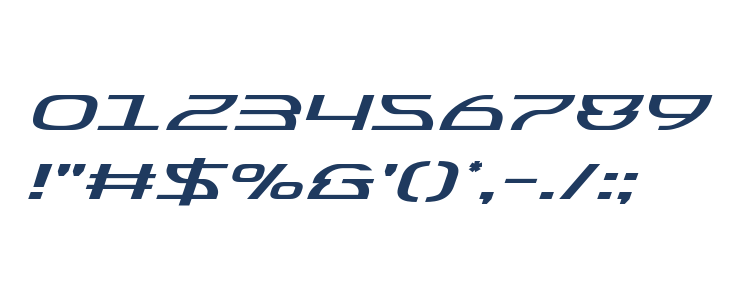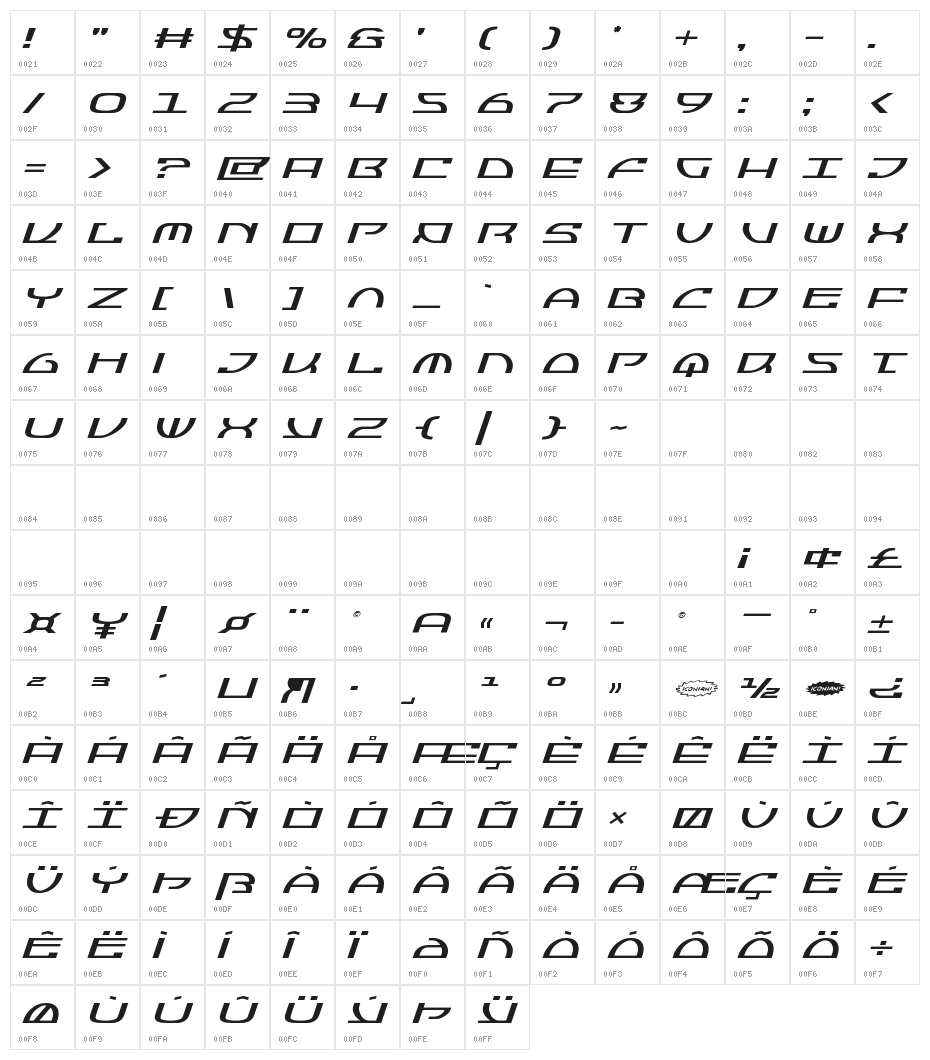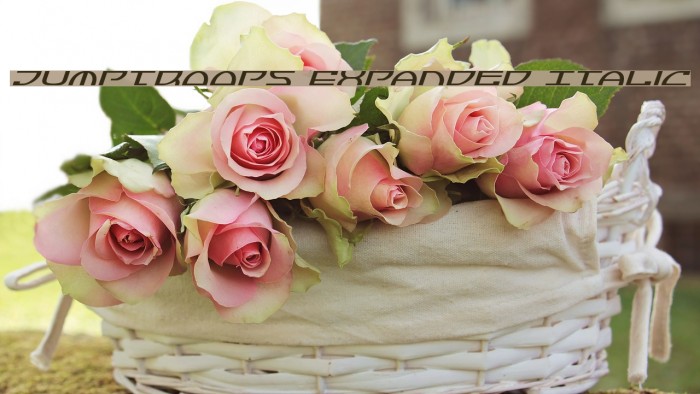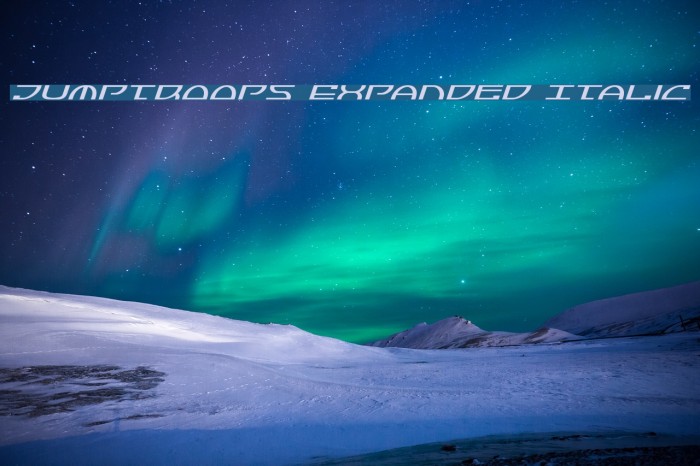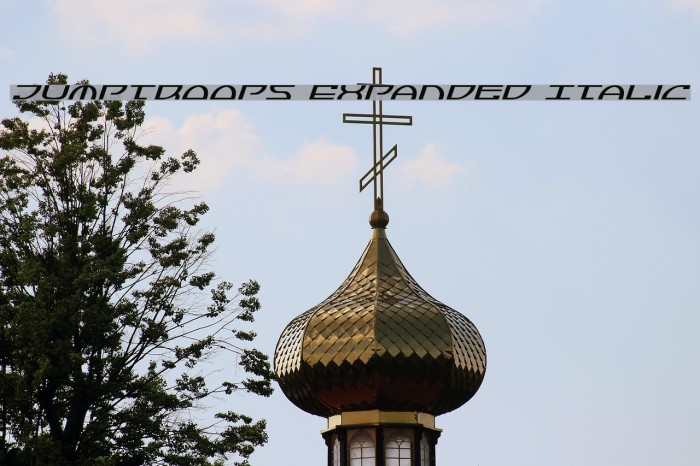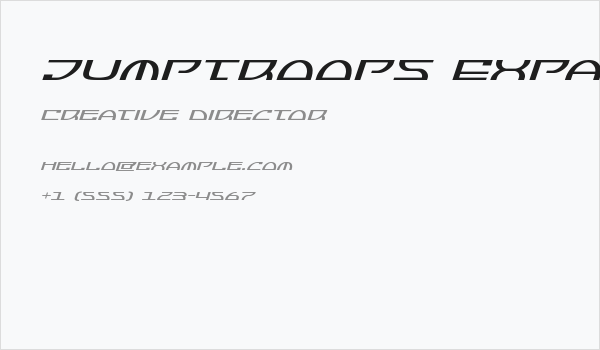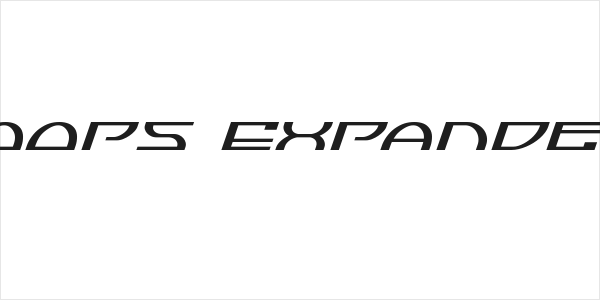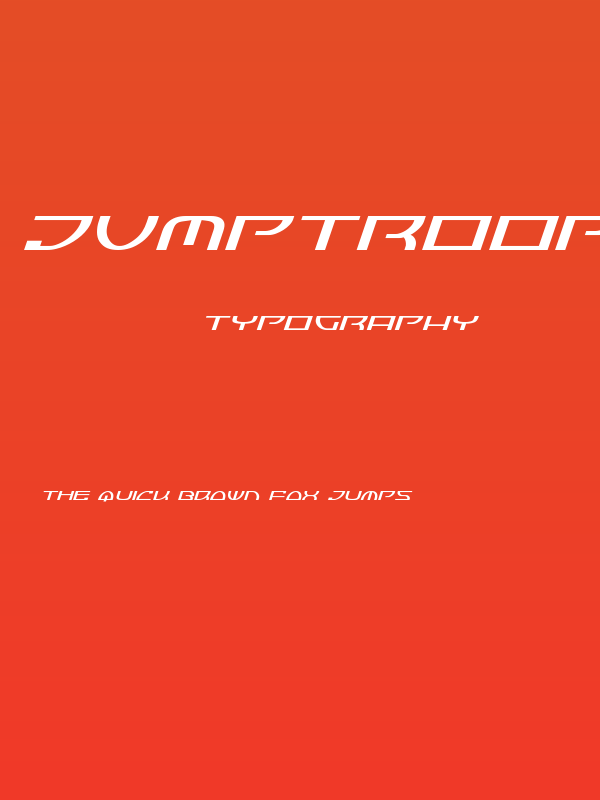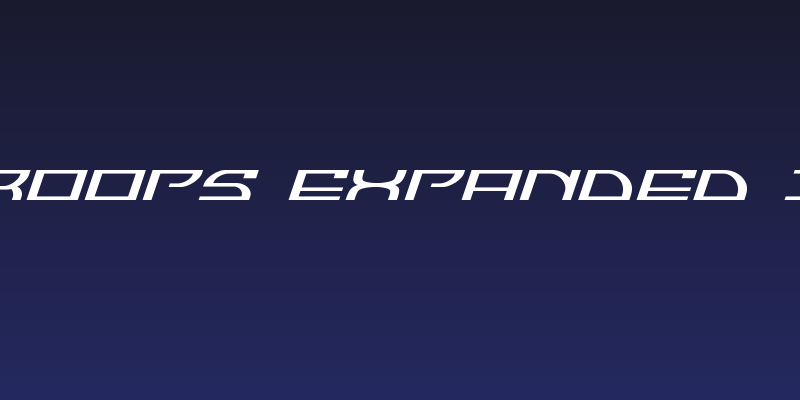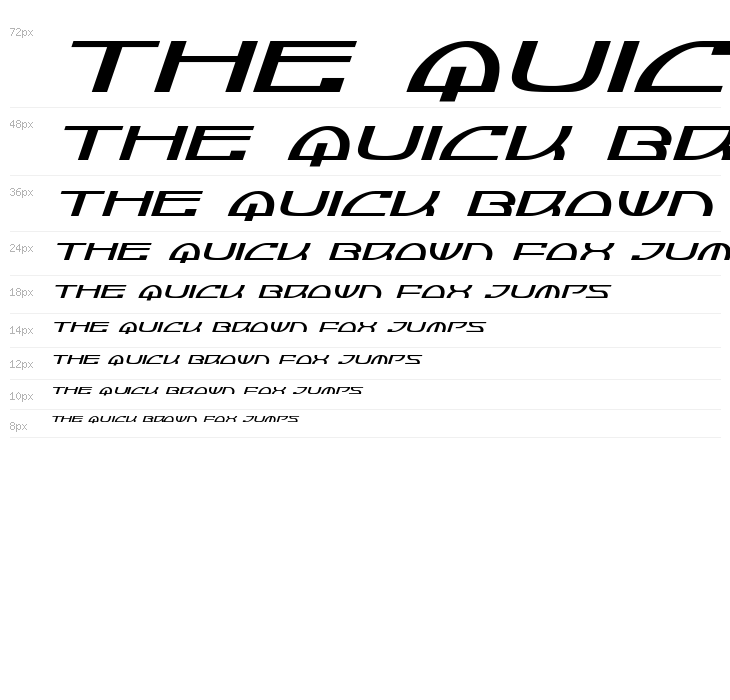
Jumptroops Expanded Italic Font
Jumptroops Expanded Italic Description
This font features a futuristic and dynamic design with an expanded and italicized style. The characters are sleek and angular, giving a sense of motion and modernity. The uppercase letters are bold and prominent, while the lowercase letters maintain a consistent style with a slightly narrower form. The numerals are distinct and easy to read, complementing the overall aesthetic. Special characters are designed to match the font's unique style, making it versatile for various uses. The font's expanded width and italic slant add to its distinctive appearance, making it suitable for eye-catching designs.
Proposed ProjectsIdeal for sci-fi themed projects, technology branding, video game titles, and dynamic posters.